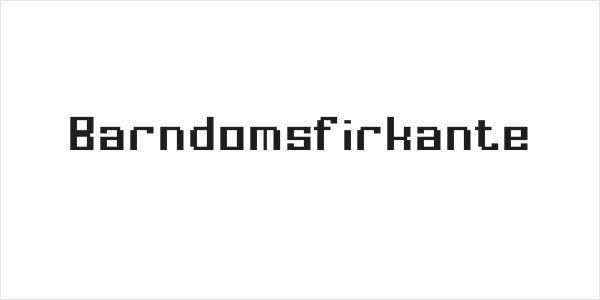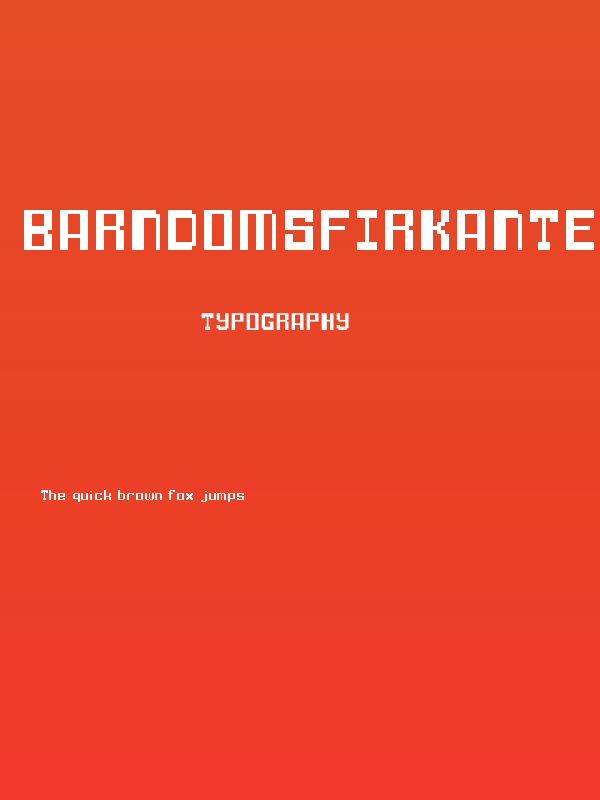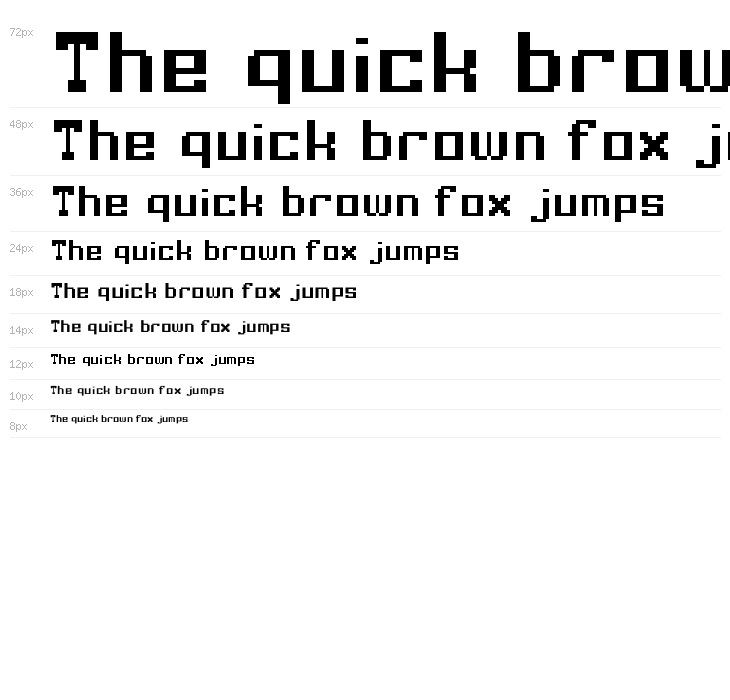
Barndomsfirkante Font
Barndomsfirkante Description
This font features a pixelated, blocky design reminiscent of early digital displays and retro video games. Each character is constructed with a uniform grid-like structure, giving it a distinctly geometric and modular appearance. The uppercase and lowercase letters maintain a consistent height, contributing to a cohesive and orderly look. The numerals and special characters follow the same pixelated style, ensuring uniformity across all glyphs. This font's nostalgic aesthetic makes it ideal for projects that aim to evoke a sense of vintage digital technology or retro gaming culture.
Overall StyleRetro, Digital
Use CaseLogos, Posters, Digital Art
Proposed ProjectsIdeal for retro video game designs, digital art projects, tech-themed posters, and nostalgic branding.